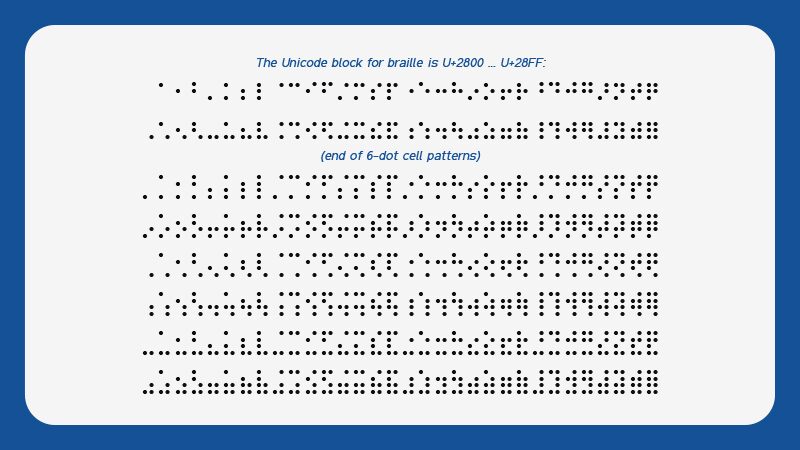
Braille CC0 is an exceptional font designed by GGBotNet. This dingbat typeface features raised dots that represent the Braille alphabet, making it perfect for creating inclusive designs for the visually impaired. The semi-bold font style adds a touch of elegance to any project, while the wide width ensures easy readability. Use Braille CC0 in various projects, ranging from educational materials to packaging design and even interior decor. Its unique style will add a personal touch to any project while also promoting inclusivity and accessibility. Get creative with Braille CC0 and make your designs stand out!